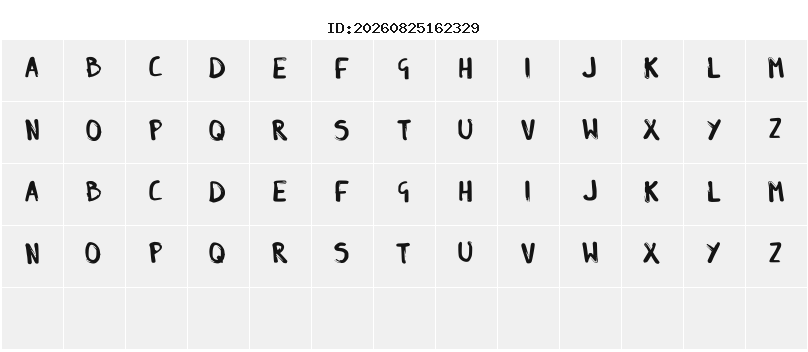
About SK_ANNA.ttf
SK_ANNA.ttf is a modern, elegant sans-serif font designed for ultimate readability and visual harmony. Perfect for branding, headlines, web design, and print materials.